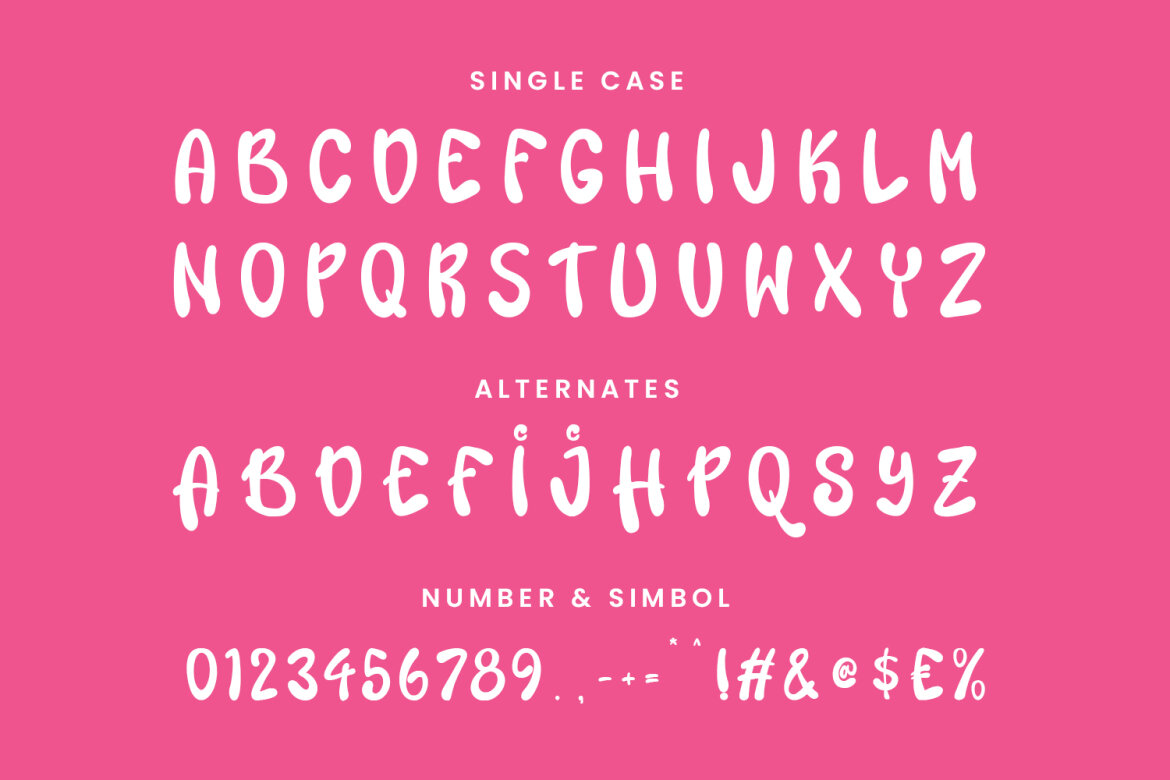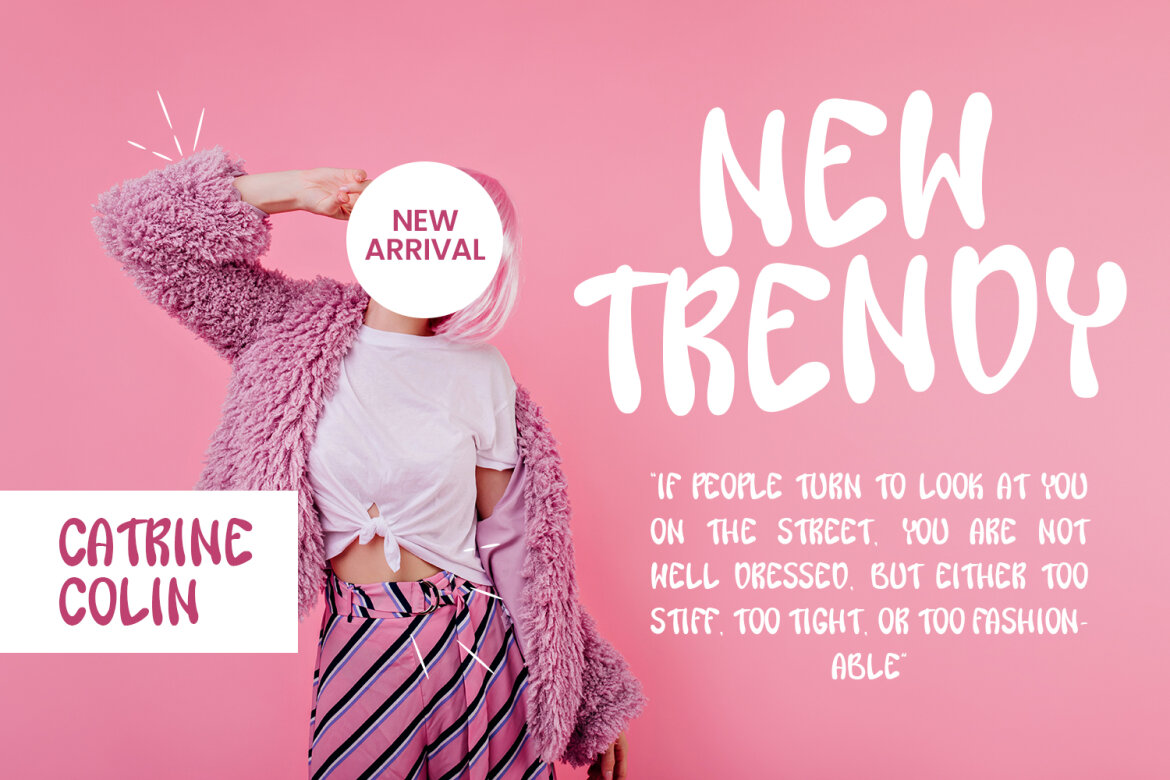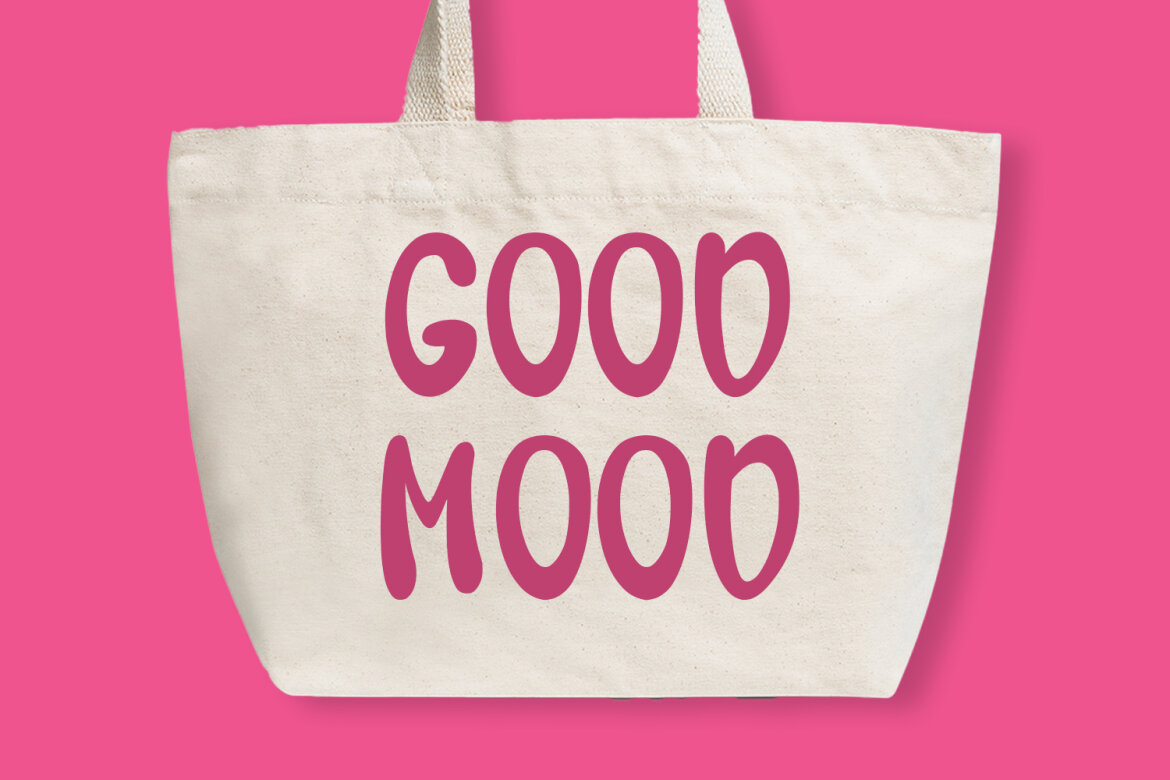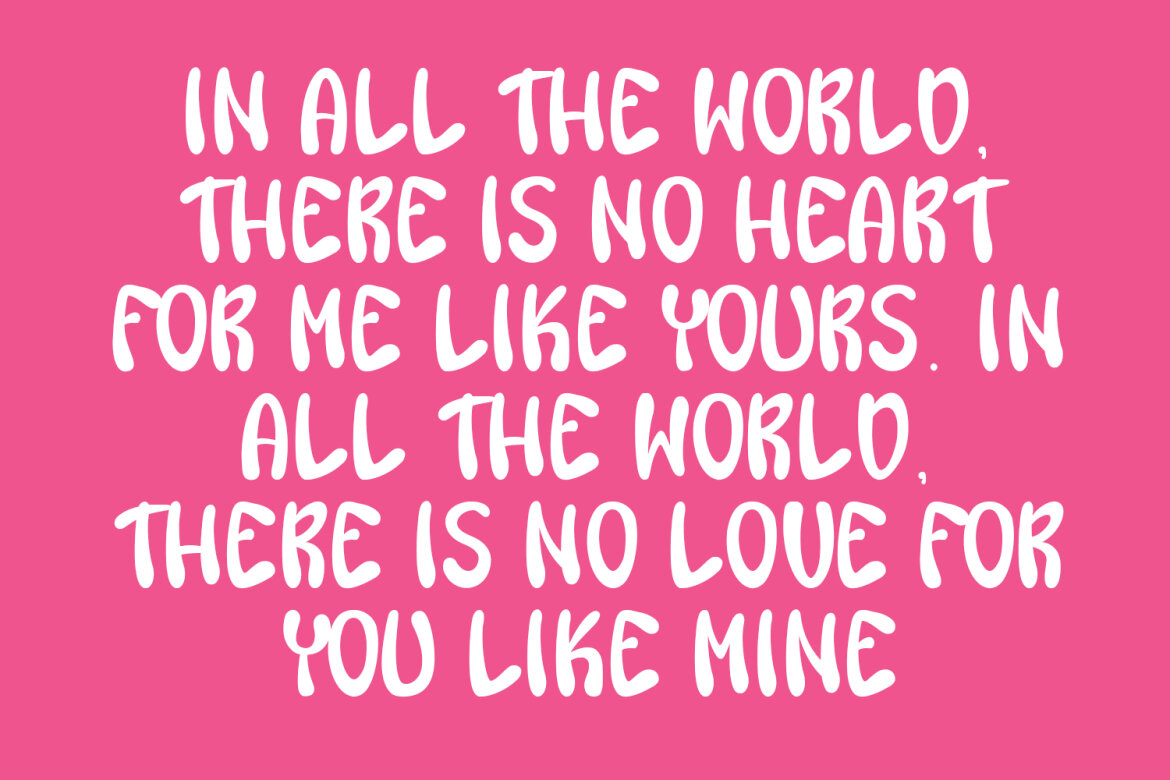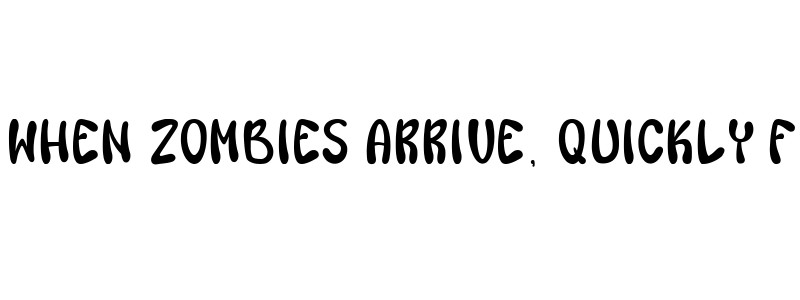
Juicy Sunday Quirky FREE Font
Juicy Sunday
Juicy Sunday quirky handwritten font. Bold contrast stroke, fun character with a bit of ligatures and alternates. To give you an extra creative work. Juicy Sunday font support multilingual more than 100+ language. This font is good for logo design, Social media, Movie Titles, Books Titles, a short text even a long text letter and good for your secondary text font with script or serif. Make a stunning work with Juicy Sunday font.